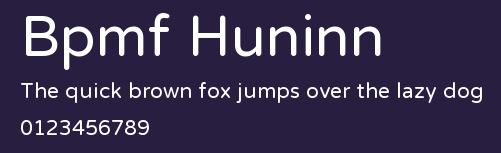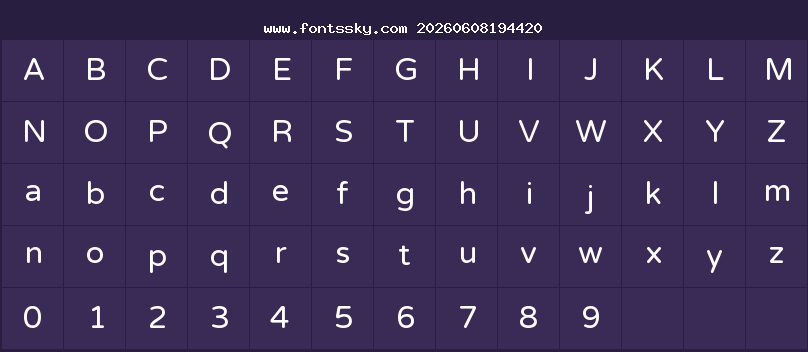
• Font Name: Bpmf Huninn
• Full Font Name: Bpmf Huninn Regular
• Designer: But Ko
• Manufacturer: But Ko
About Bpmf Huninn.ttf
Bpmf Huninn.ttf is a modern, elegant sans-serif font designed for ultimate readability and visual harmony. Perfect for branding, headlines, web design, and print materials.